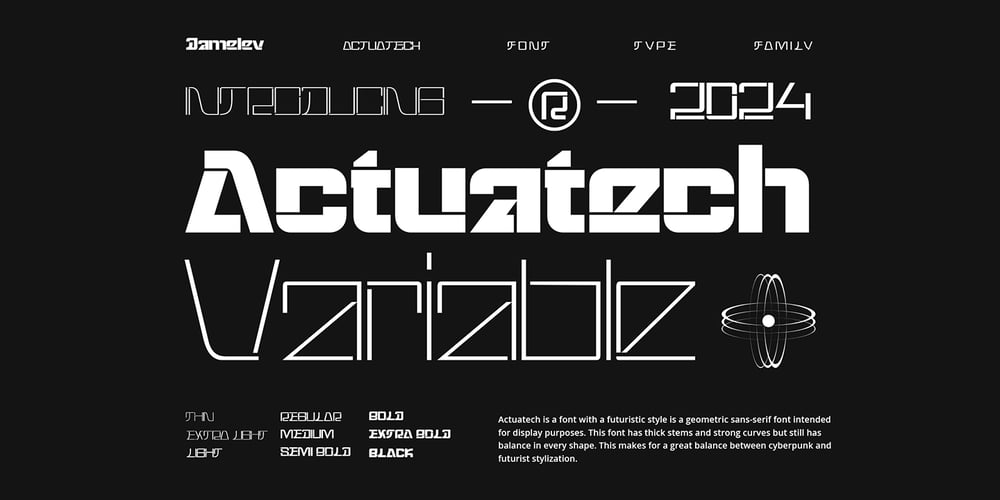
Actuatech Font Family was designed by Tanzil Adduha and published by Tanziladd. Actuatech contains 9 styles and family package options. Actuatec is a font with a futuristic style is a geometric sans-serif font intended for display purposes. This font has thick stems and strong curves but still has balance in every shape. This makes for a great balance between cyberpunk and futurist stylization. It features four weights (Thin, Extra light, Light, Regular, Medium, Semi bold, Bold, and black). Actuatech has pretty much alternatives glyphs choice in the pack and support multilingual.